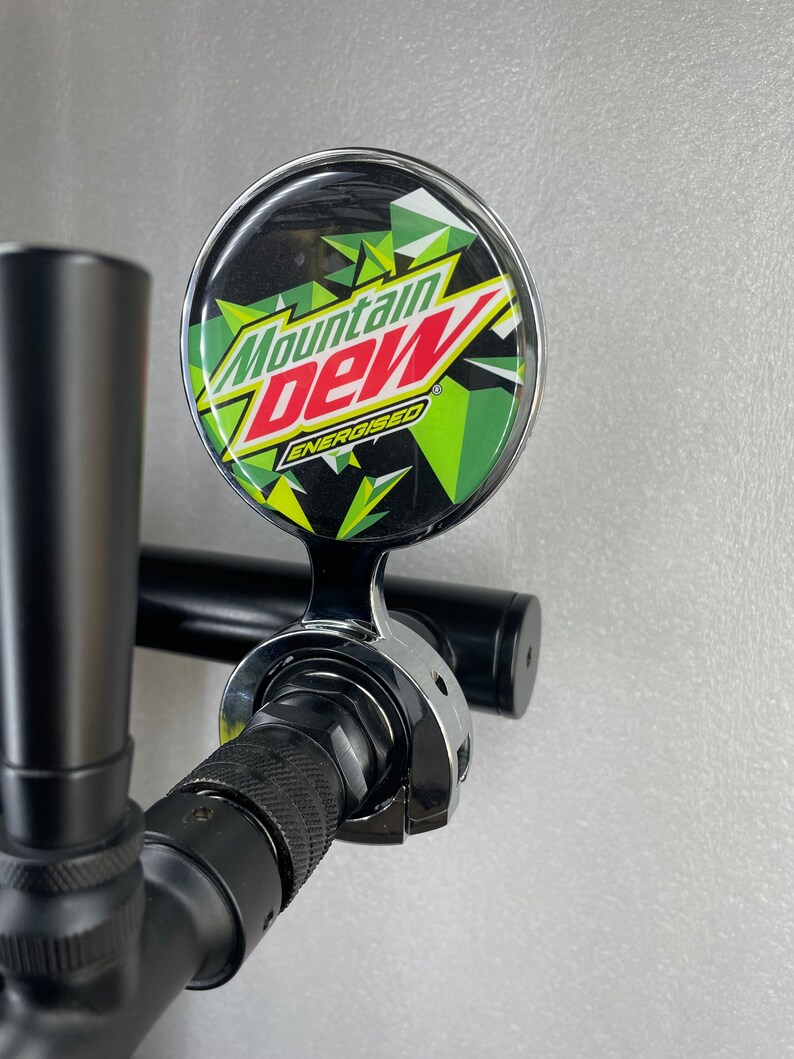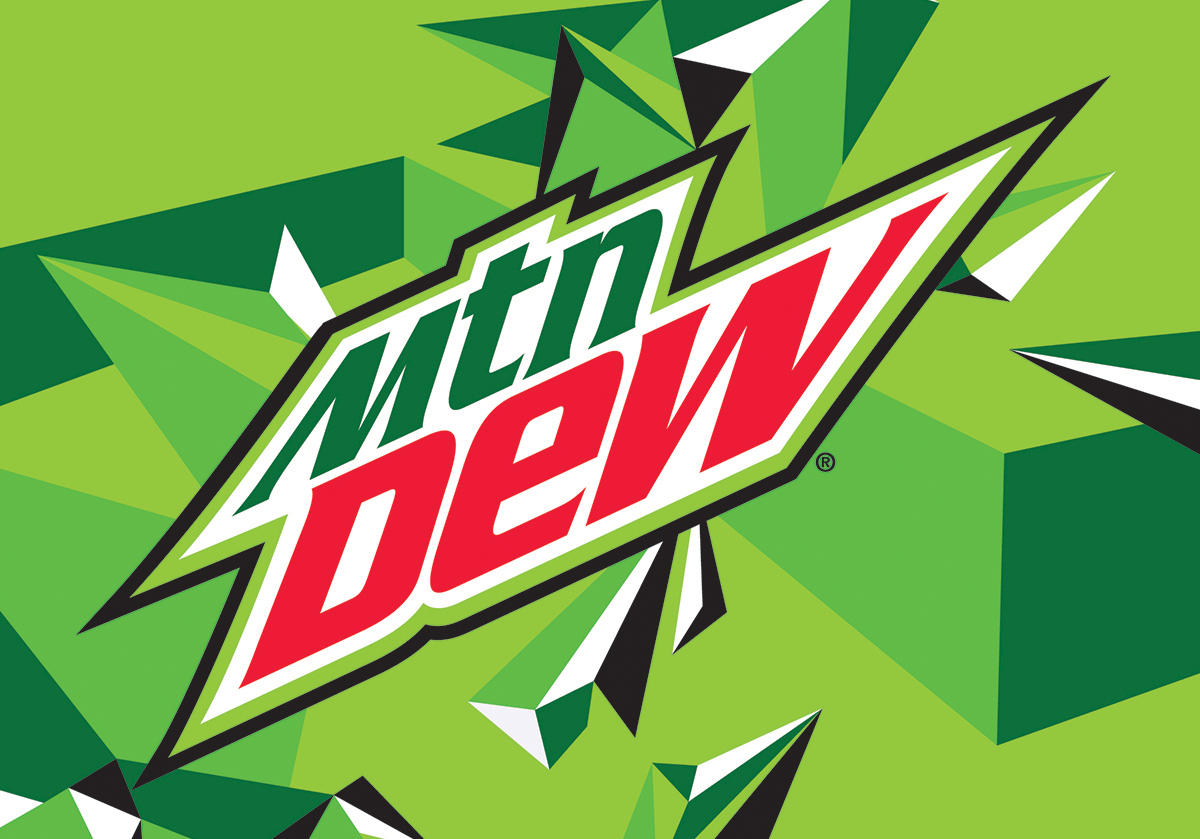
Mtn Dew Font Generator
Simply generate text images or copy & paste text to share anywhere. Download free legally licensed fonts, perfect for your design projects. Generate cool and amazing fonts by using mountain dew font generator. Mountain dew font download is available free from fontget. Discover and install our selection of free fonts, integrate them into your.
Discover and install our selection of free fonts, integrate them into your. Download free legally licensed fonts, perfect for your design projects. Mountain dew font download is available free from fontget. Generate cool and amazing fonts by using mountain dew font generator. Simply generate text images or copy & paste text to share anywhere.